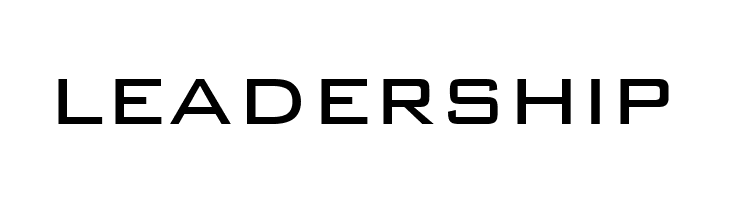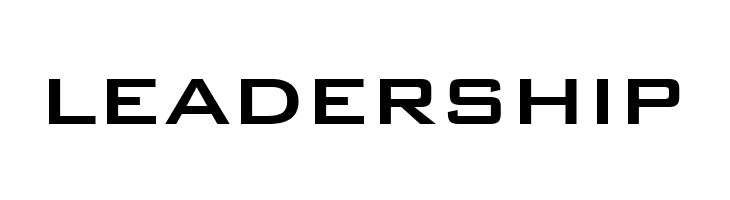
• Bank Gothic Light BT
• Bank Gothic Medium BT
• Bank Visit JL
A display font with banking and financial iconography integrated into bold, blocky letters.
• Bankir-Retro
A retro-style font with tall, narrow characters and sharp angles.
• Bankjob
A bold, geometric font with a strong, blocky appearance.
• Bankoli Bold
• Bankports
( Fonts by Maulana Creative )
Elegant handwritten script font.
• BAnkrutt
( Fonts by www.smeltery.net )
A bold blackletter font with sharp, angular lines and high contrast.
• Banksia
( Fontor )
A modern, clean font with a geometric and slightly curved design.
• Banksia Bold
( Fonts by Daniel Midgley )
A bold, modern font with angular characters and a dynamic style.
• Banksia-Black
( Fonts by Daniel Midgley )
A bold, geometric font with a strong, modern presence.
• Banksia-Bold
( Fonts by Daniel Midgley )
A bold, modern font with clean lines and a friendly appearance.
• Banksia-Regular
( Fonts by Daniel Midgley )
A modern, sans-serif font with rounded edges and consistent stroke width.
• Bankwesen Regular
A bold icon set font with business and finance pictograms.
• Bannie
A bold, playful script font with smooth, flowing strokes.
• Banquet Hollow Regular
A bold, hollow font with a three-dimensional effect and consistent stroke width.
• Banquet Regular
A bold, three-dimensional font with a shadowed outline for a modern, impactful look.
• Bansat
A bold, brush-style font with dynamic, slanted strokes and sharp angles.